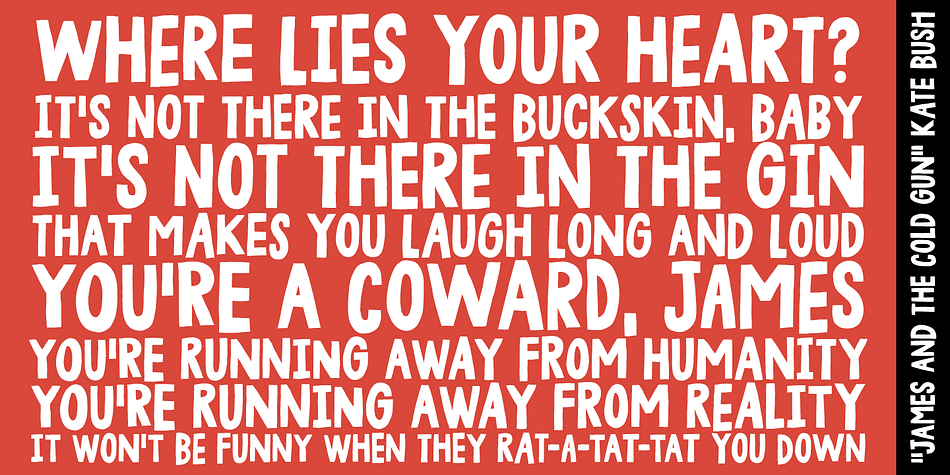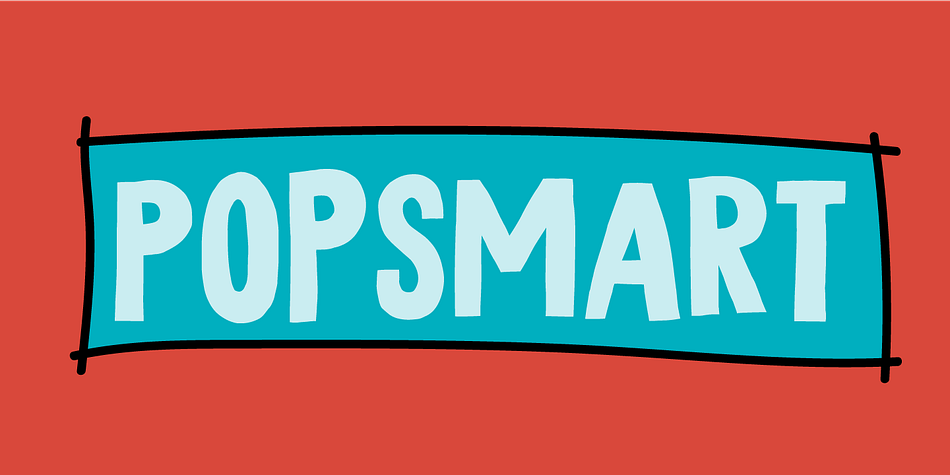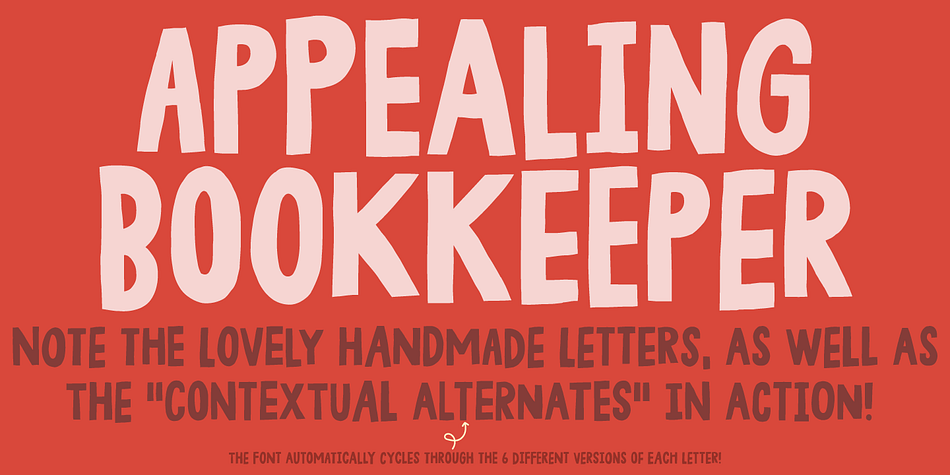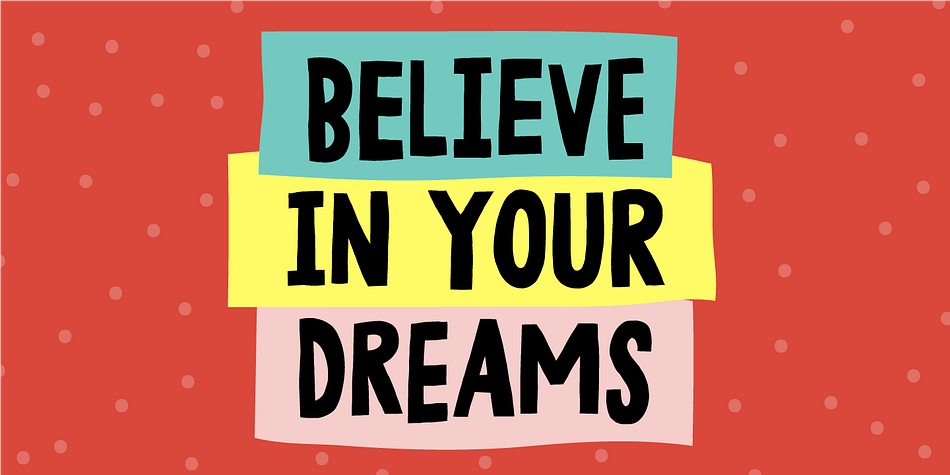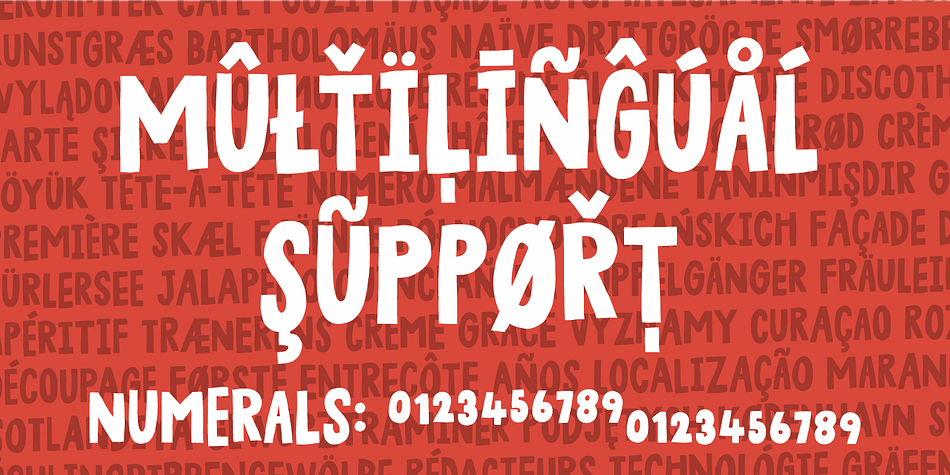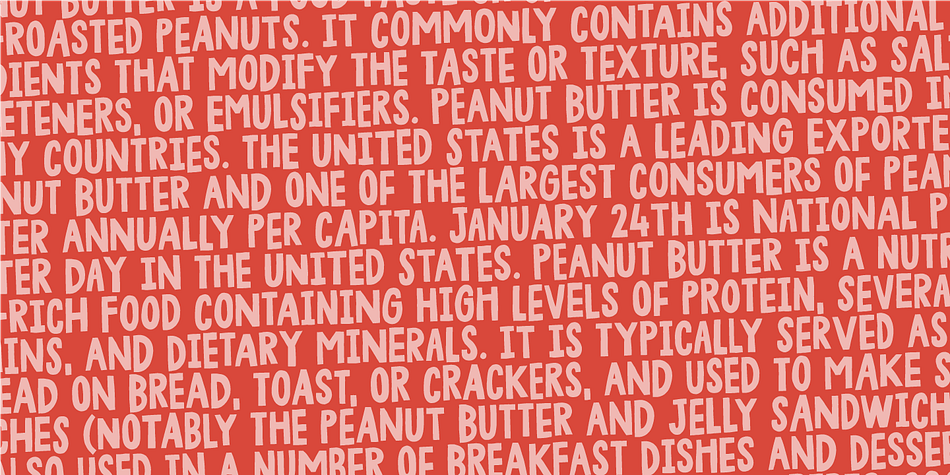
Designed by Jakob Fischer, Popsmart is a hand display and modern calligraphy font family. This typeface has two styles and was published by Bogstav.
Popsmart means “smart or skilled in a superficial, self-righteous or annoying way” - but when I was young in the 1980ies, it was a positive thing to be popsmart. At least in Denmark! :)
Anyway, I find this font to be smart in a positive way: It has a bouncy appearance ( with help from the Contextual Alternates, the font cycles the 6 different versions of each letter!) and a “go-ahead-and-type-anything-and-it-will-end-up-looking-good” kinda vibe.